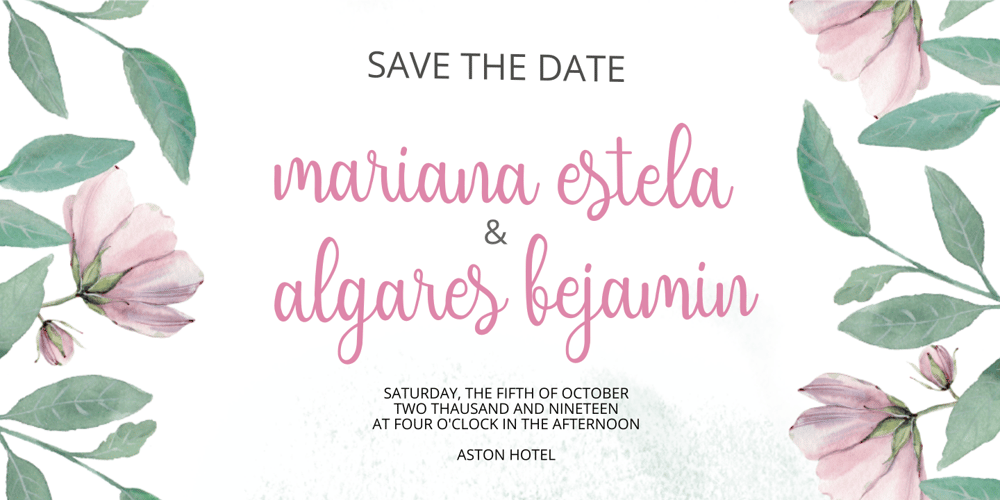
Sendica Font Family was designed by Setiadi Rahagita and published by RahagitaType. Sendica contains 1 styles and family package options. Sendica delivers a playful and charming script experience. It’s the ideal font for adding a dash of elegance to your next design project.